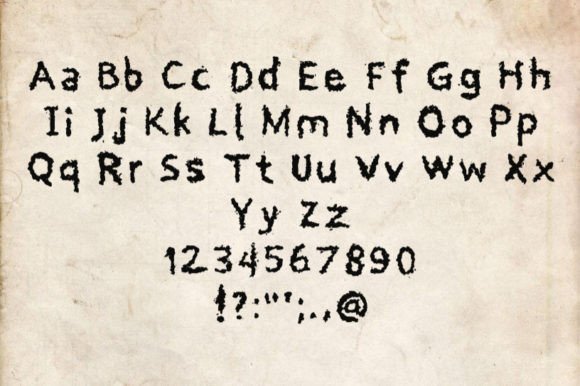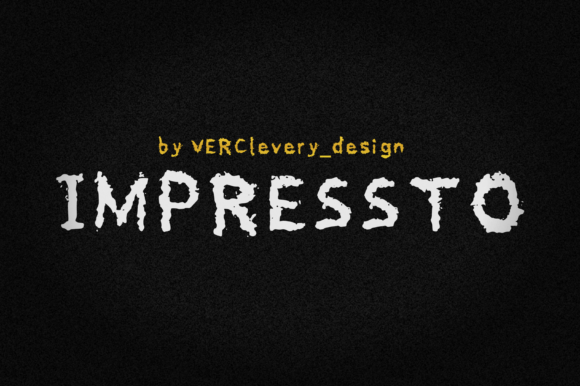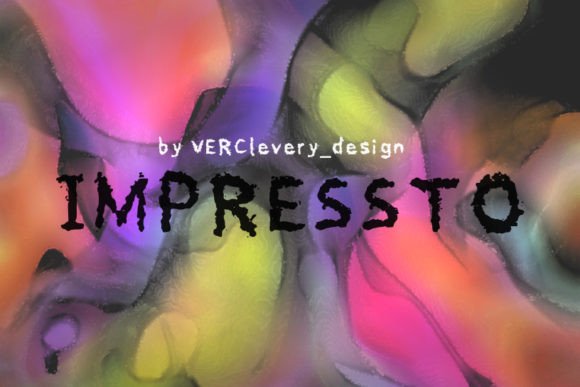
Introduction to Impressto Font
Have you ever stared at a blank canvas, struggling to bring your creative vision to life? I know I have. Sometimes, all it takes is the right design resource to spark that extra bit of inspiration. For designers, finding the perfect font can be a game-changer, elevating a project from bland to grand. That’s where the Impressto Font comes in – a delightful, whimsical handwritten brush font that’s sure to captivate your audience.
What sets Impressto Font apart is its versatility. Whether you’re working on a free download for a non-profit or creating a high-quality design for a commercial client, this font is an excellent choice. With its transparent background and fluid lines, Impressto Font adds a touch of personality to any creative project. And the best part? It’s an excellent addition to any designer’s library, offering endless possibilities for unique and captivating designs.
Key Features of Impressto Font
- Transparent background option allows for seamless integration with custom backgrounds and designs.
- Impressto Font offers a unique, modern aesthetic, making it perfect for contemporary design projects, such as branding, advertising, and digital media.
- High-resolution design (up to 300 DPI) ensures crisp, clear typography, even at large sizes.
- Impressto Font is designed to be highly legible, making it suitable for a wide range of applications, from body text to headings.
Honest Review: Impressto Font
As a designer, I’m always on the lookout for high-quality design resources that can elevate my creative projects. Recently, I stumbled upon the Impressto Font, and I’m excited to share my honest review with you.
What works well: ✨ The Impressto Font offers a sleek and modern design that’s perfect for a variety of creative projects. The font is highly versatile and can be used for both digital and print media. I also appreciate the transparent background, which makes it easy to layer and combine with other design elements.
- Transparent background for easy layering and combination
Overall impression: I’m impressed with the Impressto Font and would recommend it to designers who are looking for a high-quality, free design resource. While it may have some limitations, it’s a great addition to any design toolbox.
Impressto Font Overview
The Impressto Font is a high-quality design resource ideal for creative projects. This free download offers a transparent background, making it perfect for backgrounds, overlays, and other design elements.
Tips for Getting the Most Out of the Impressto Font
Use the Impressto Font as a background or overlay to add depth to your design.
Combine the Impressto Font with other design elements to create a unique and eye-catching visual effect.
Experiment with different font sizes and colors to achieve the desired look and feel.
The Impressto Font is ideal for